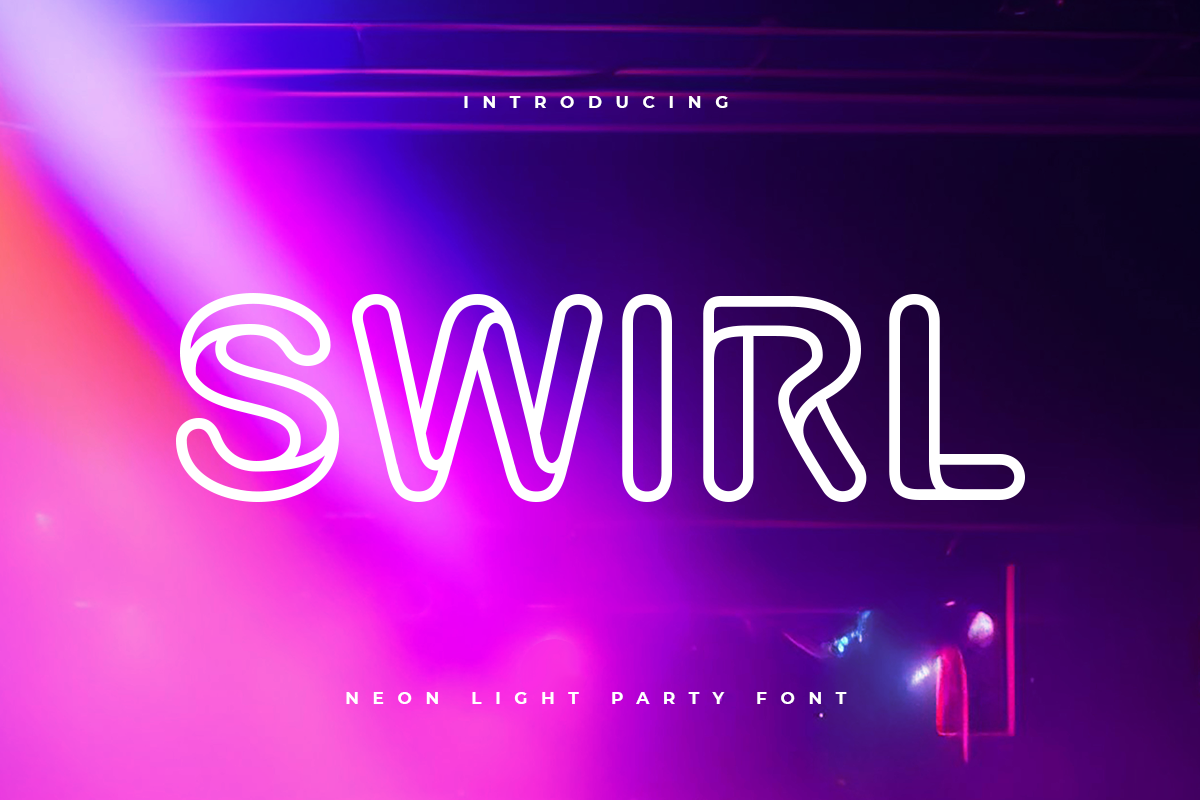
SWIRL - Neon Light Party Font
Create electrifying party vibes with SWIRL, the neon light font that makes every headline glow with modern energy. SWIRL features a unique floating shape design that transforms ordinary text into eye-catching neon-style typography. This display font is specially crafted for headlines, titles, and any typography that needs to stand out with party-style flair. Perfect for creating distinctive designs with a modern feel, SWIRL brings that authentic neon light aesthetic to your creative projects. Th...